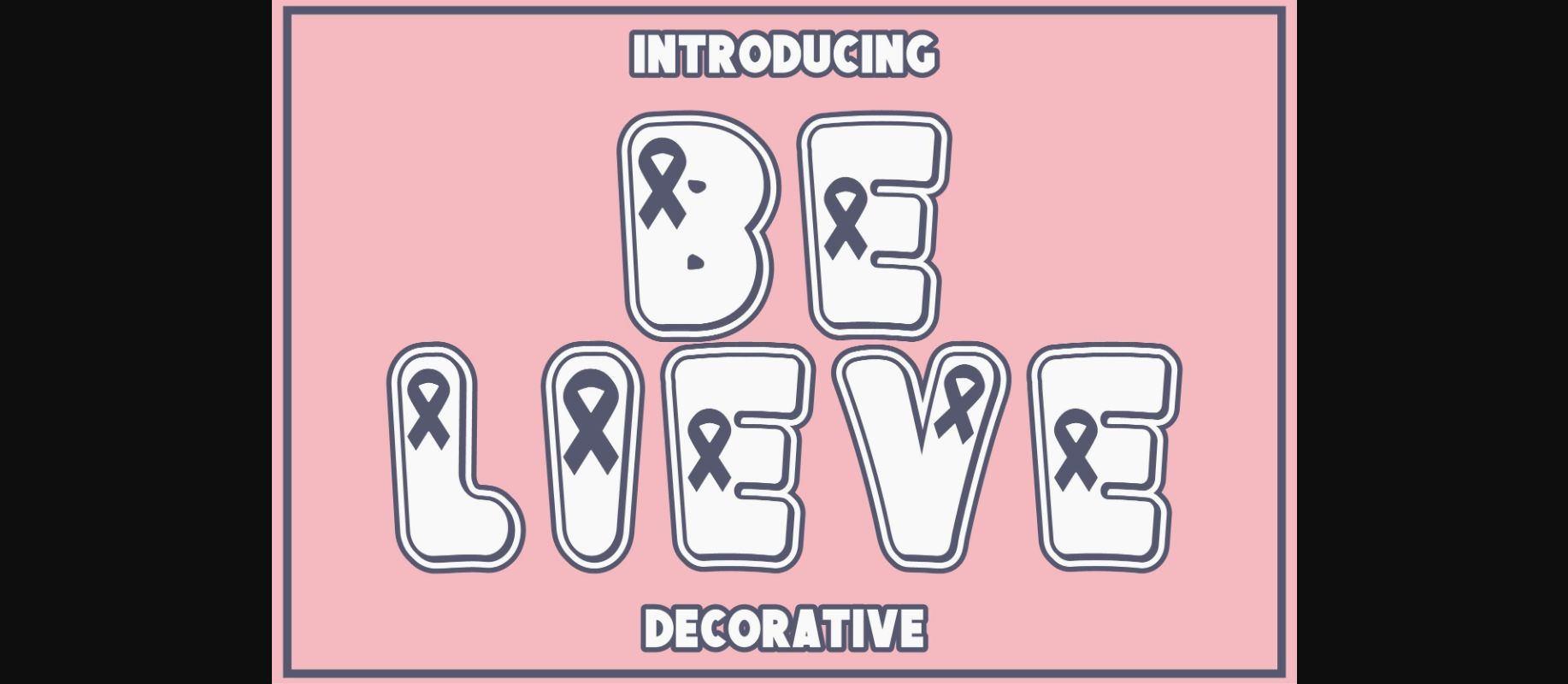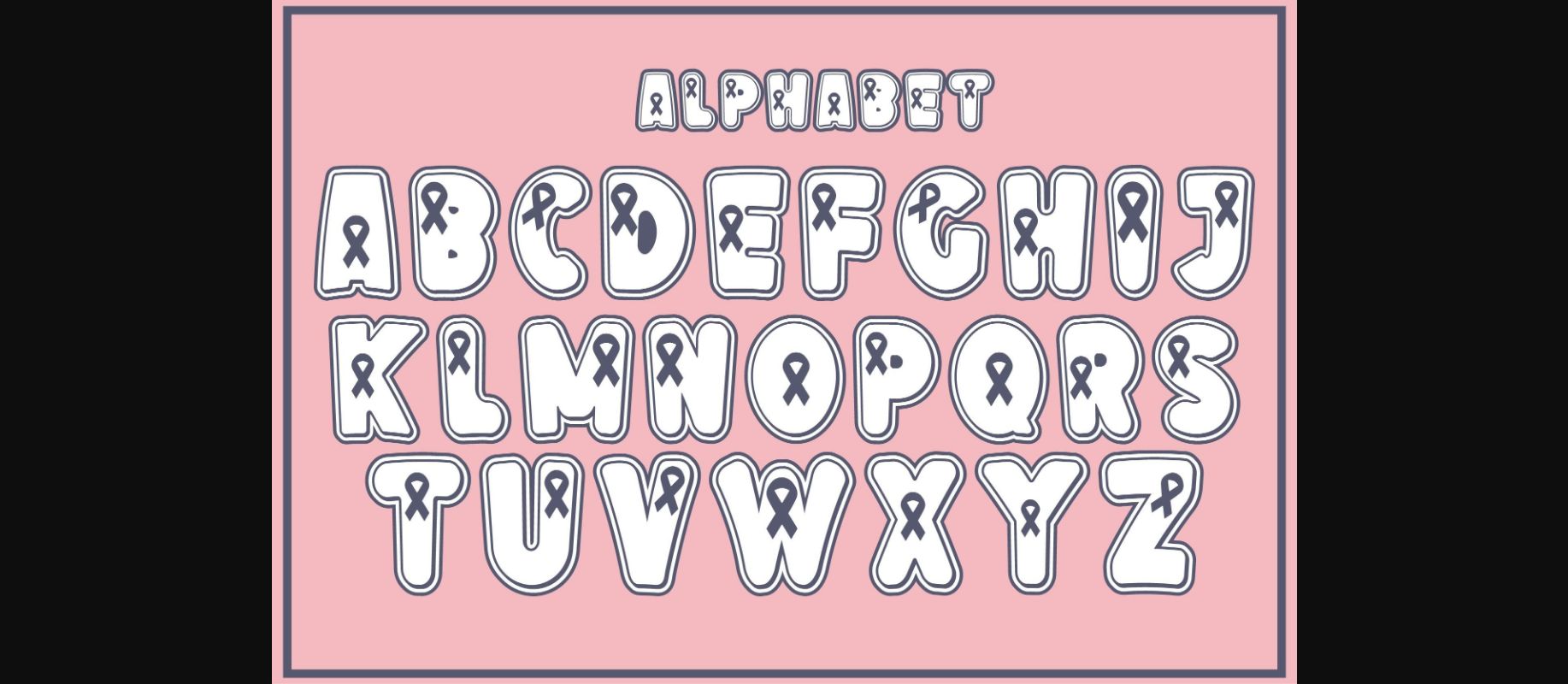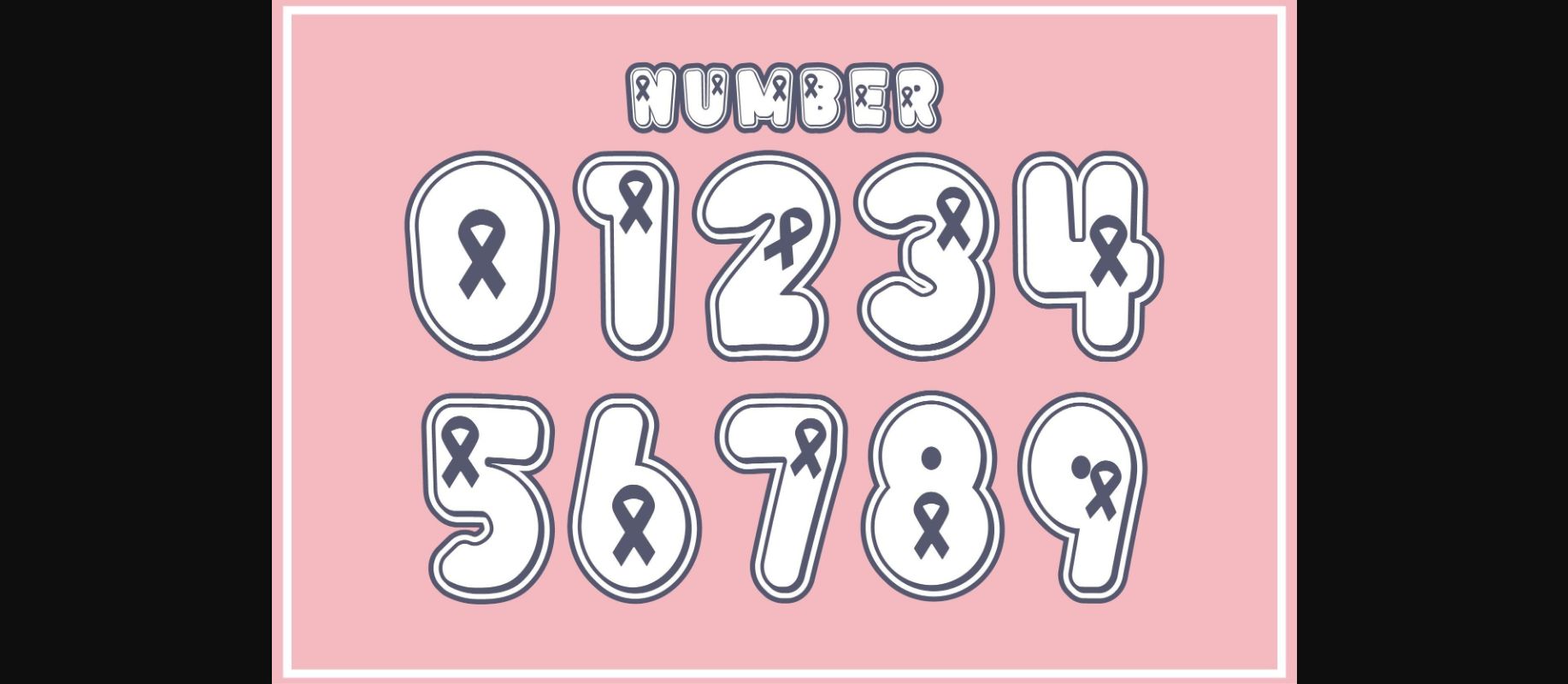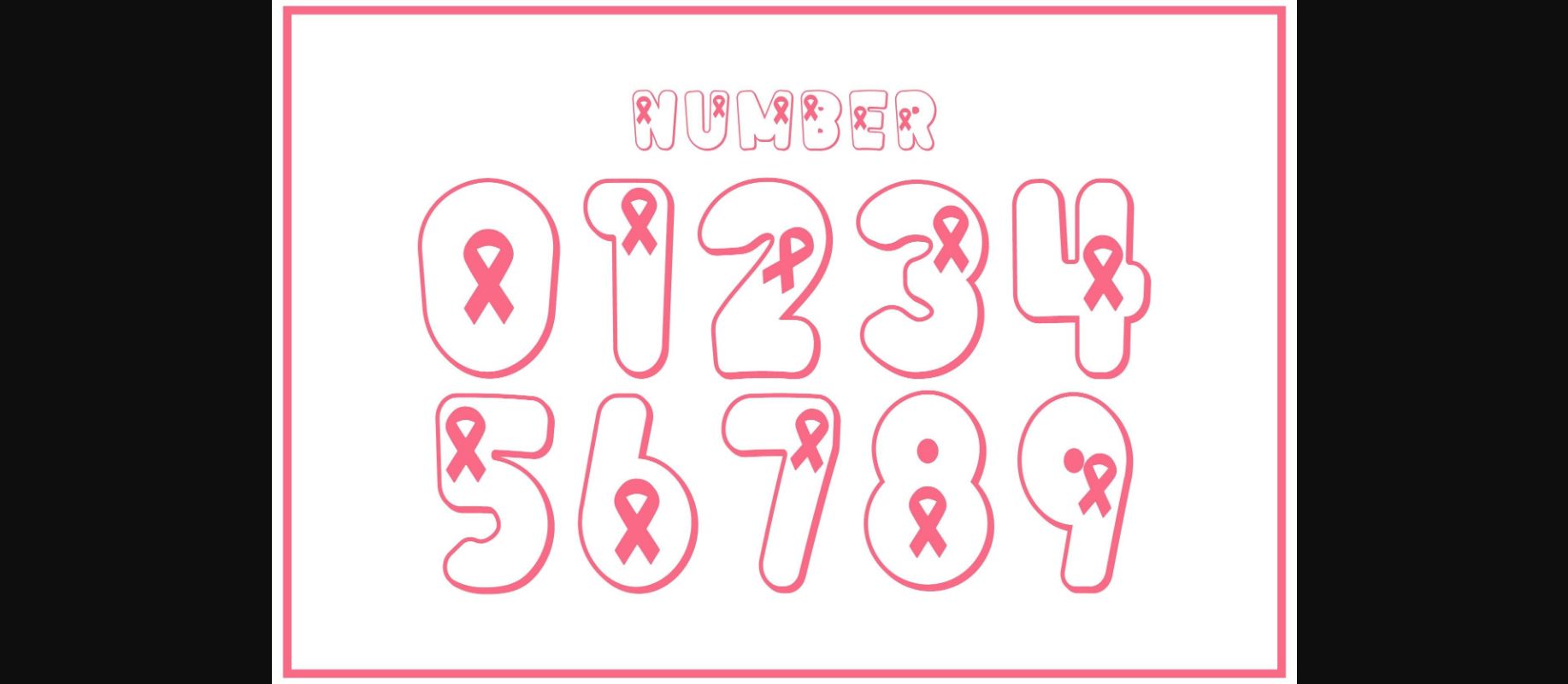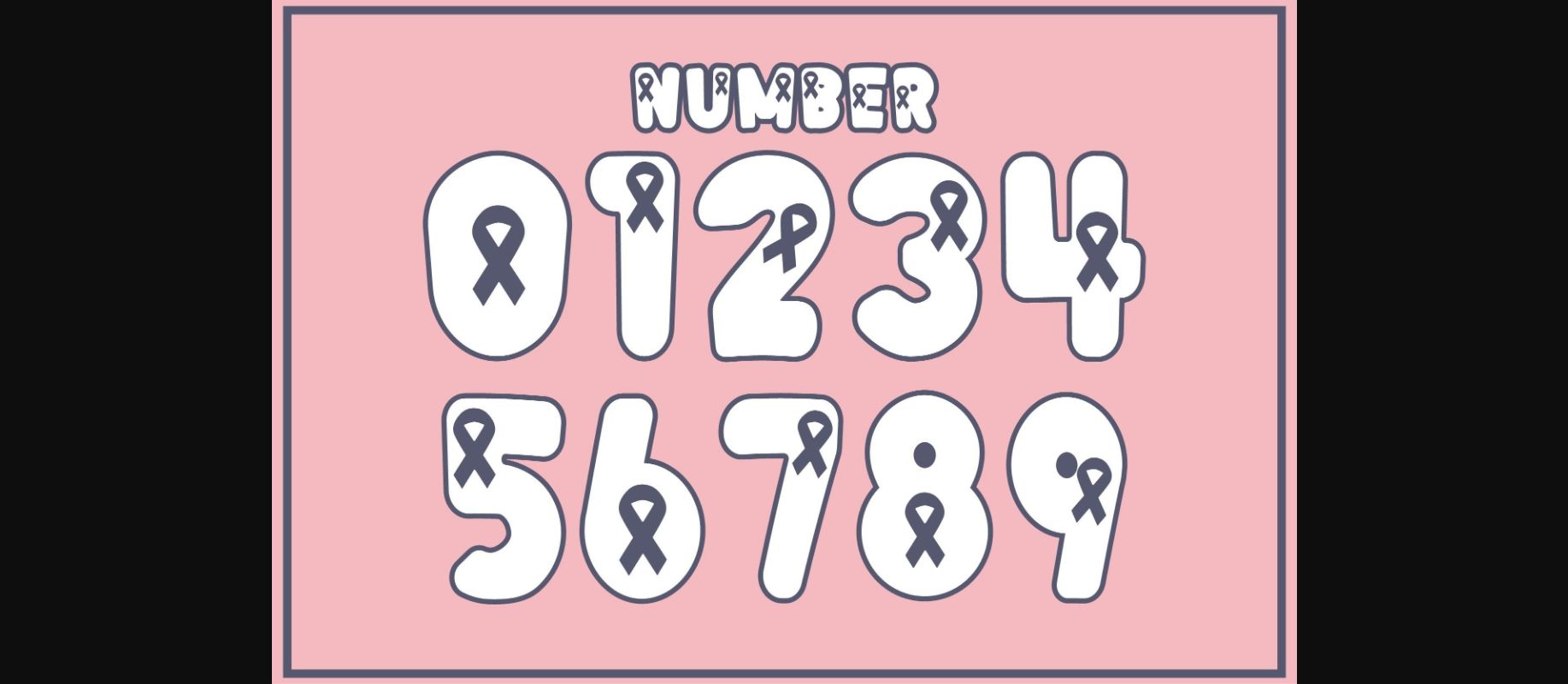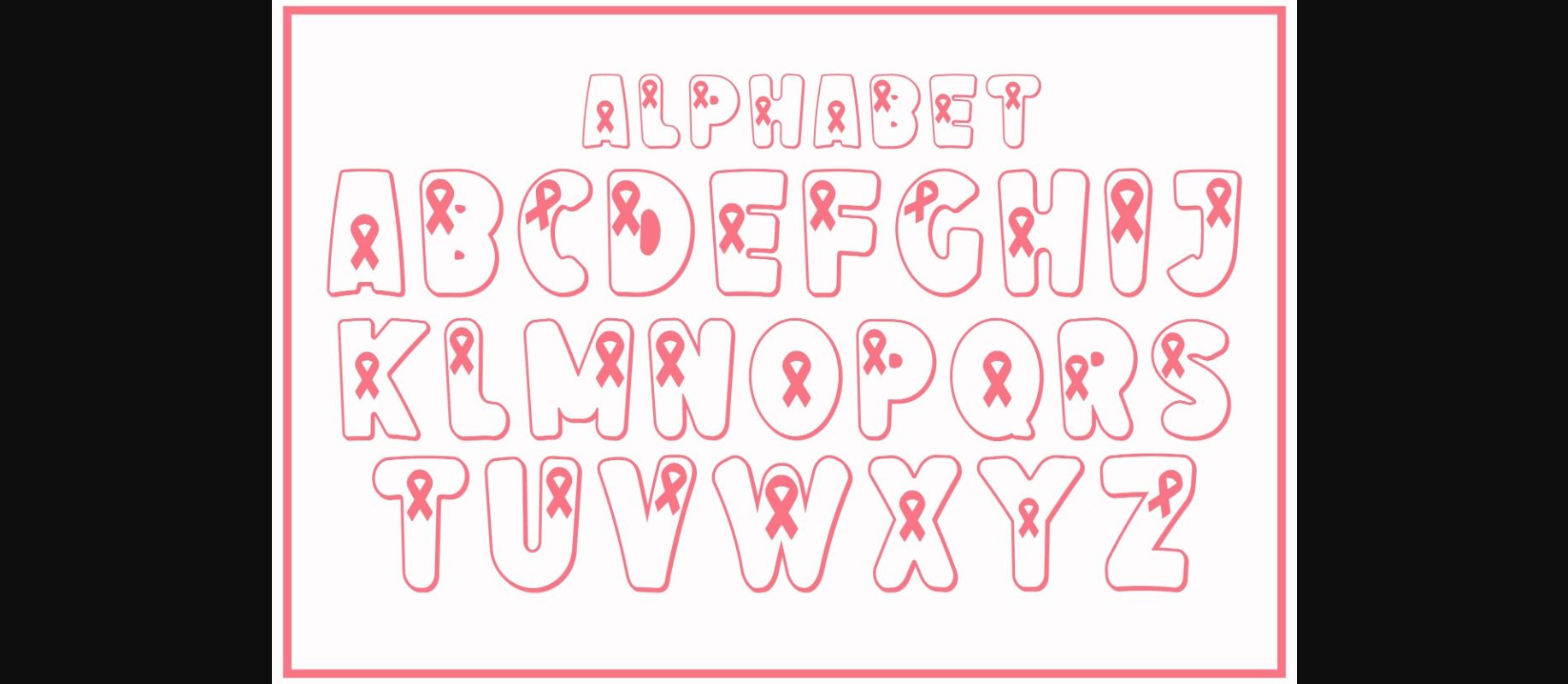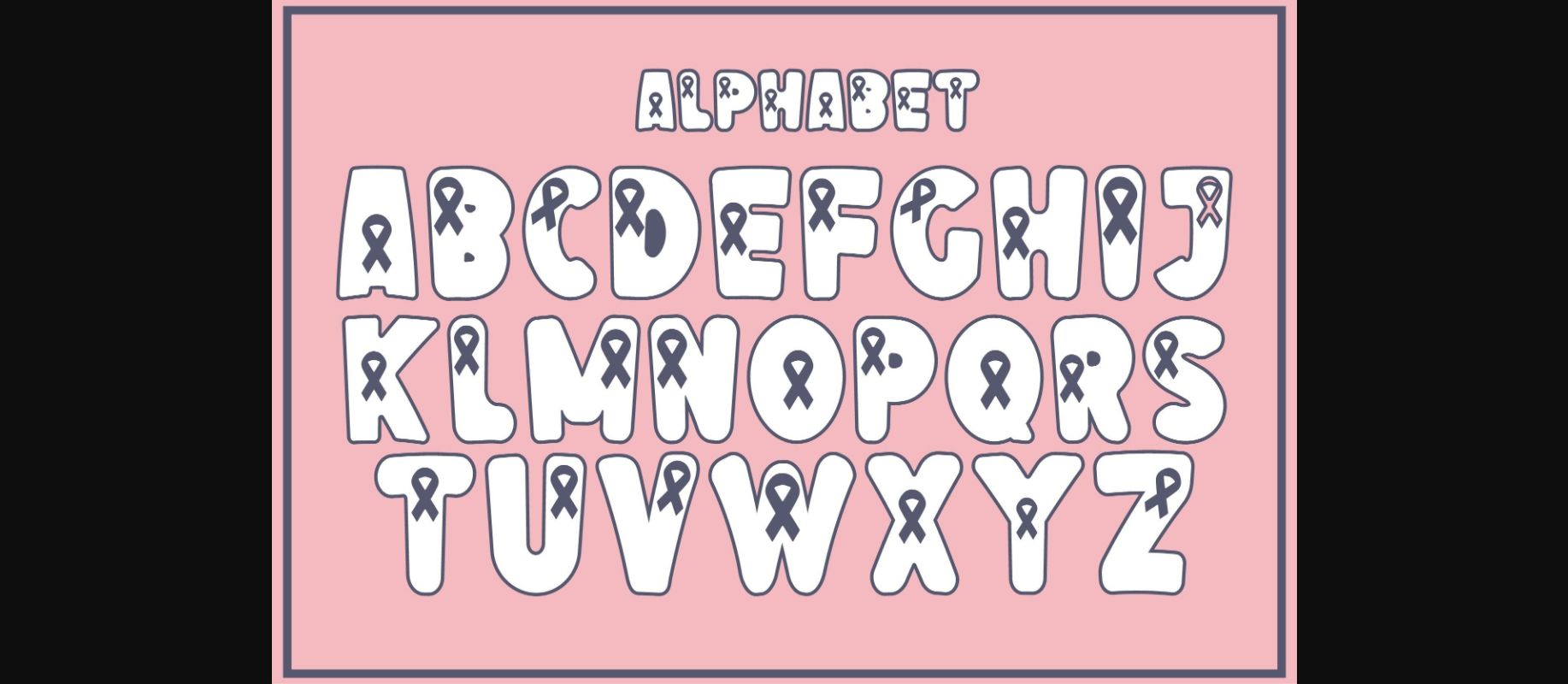
Believe is a thick lettered and uniquely designed decorative font. It can be used for various design ideas, particularly those that seek to bring support to people that are suffering from cancer.